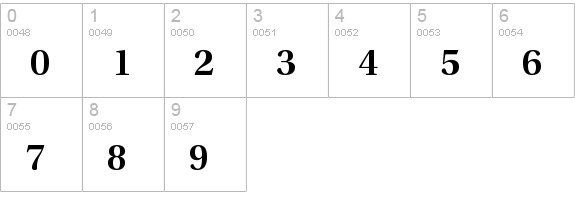
Utopia Std Semibold Subhead Font Details
Utopia Std Semibold Subhead is a sub-bold, structured variant in the Utopia typeface family \xE2\x80\x94 well suited to sub-headlines and emphasised passages.
Utopia Std Semibold Subhead font stands as a testament to the power of elegance and boldness combined. With its distinctive and commanding presence, this font is perfect for making a statement in headlines, subheadings, and other important textual elements. Its semi-bold weight strikes the perfect balance between strength and readability, allowing your message to shine through with clarity and confidence. Designed with meticulous attention to detail, Utopia Std Semibold Subhead font exudes a sense of sophistication and professionalism. Its carefully crafted letterforms showcase a harmonious blend of curves and angles, resulting in a truly eye-catching typography. Whether it's for print or digital applications, this font is sure to capture attention and leave a lasting impression. What sets Utopia Std Semibold Subhead font apart is that it is freely available to download at FontsMarket.com. Yes, you read that right! This exceptional font can be yours without any cost, allowing you to effortlessly elevate your design projects without breaking the bank. FontsMarket.com offers a vast collection of high-quality fonts, and Utopia Std Semibold Subhead font is just one of the many gems waiting for you to discover. So, why settle for ordinary when you can have extraordinary? Embrace the power of Utopia Std Semibold Subhead font and transform your designs into masterpieces. With its captivating presence and the convenience of being freely accessible at FontsMarket.com, this font is a must-have for any designer or creative individual looking to make a bold statement. Download it today and let your creativity soar to new heights.